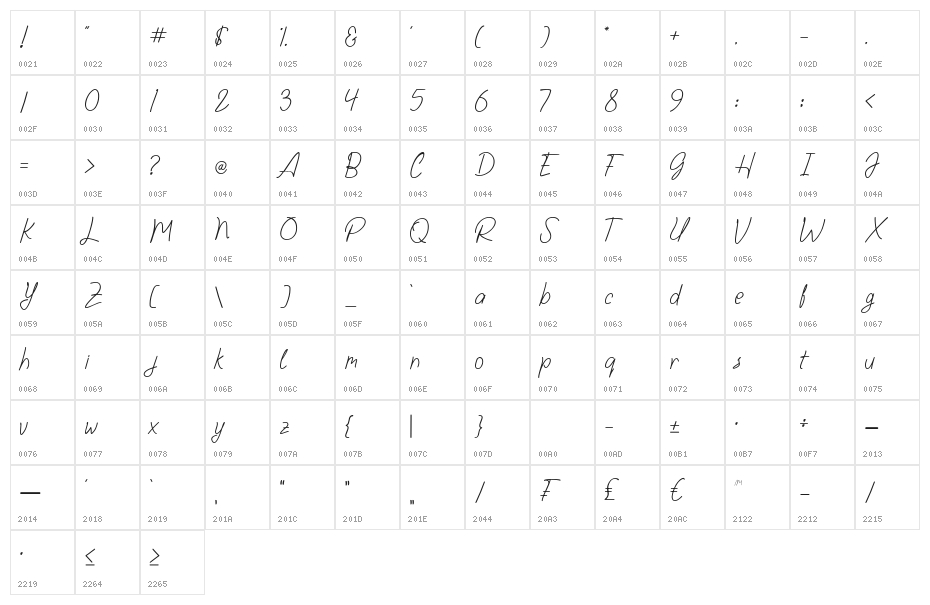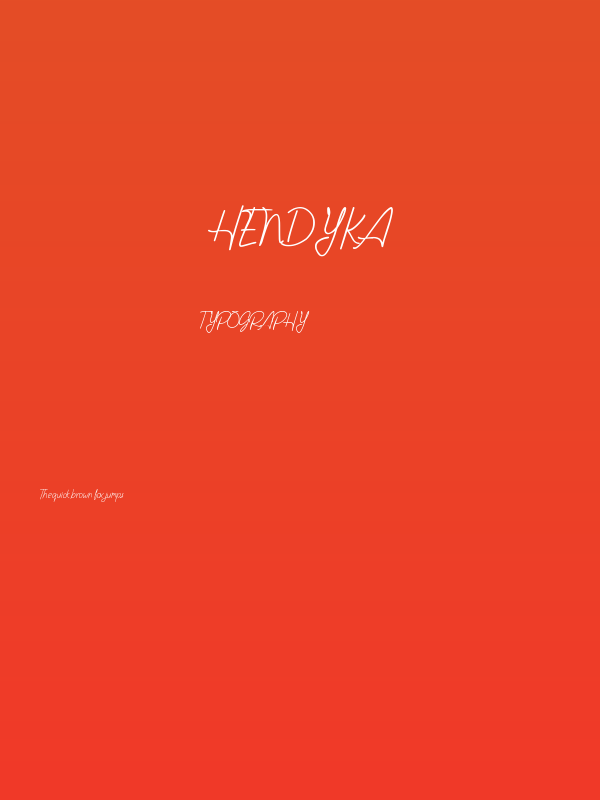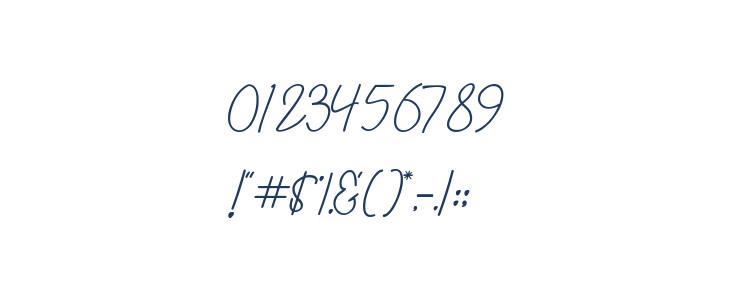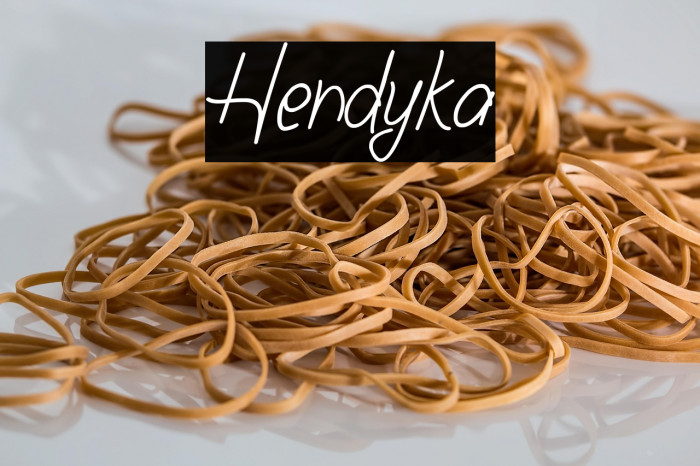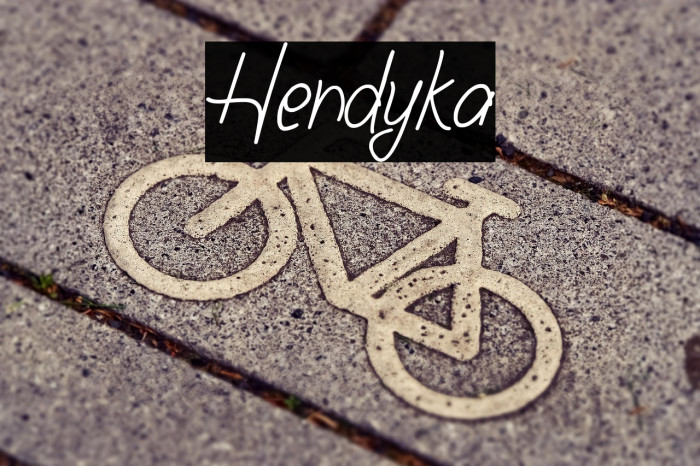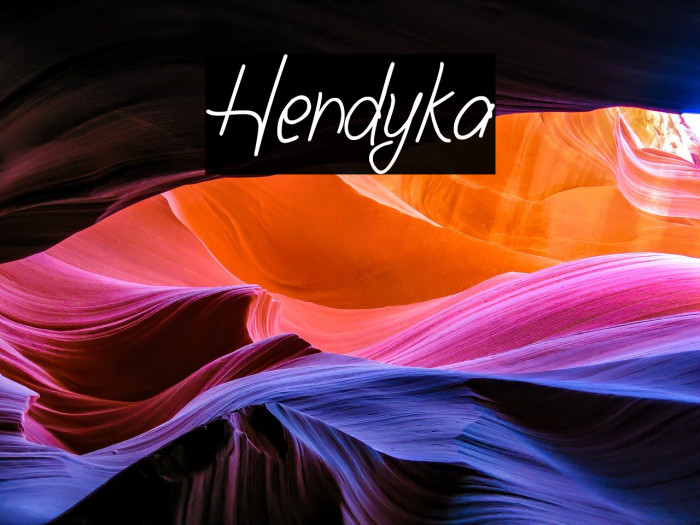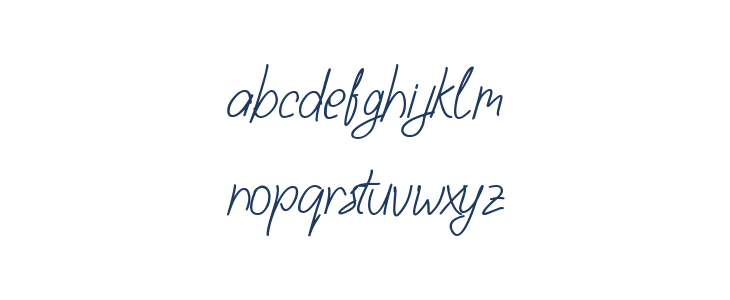
Hendyka Font
Hendyka Description
This font features a flowing, handwritten style with elegant curves and a natural, cursive appearance. The letters are connected, creating a seamless and fluid look that mimics natural handwriting. The uppercase letters are slightly more elaborate, with some featuring loops and swirls that add a touch of sophistication. The lowercase letters maintain a consistent style, with smooth transitions between characters. Numbers and special characters are designed to match the overall aesthetic, ensuring a cohesive look across all text. The font's organic feel makes it suitable for projects that require a personal touch.
| Proposed Projects | Ideal for wedding invitations, personal branding, greeting cards, and artistic projects. |